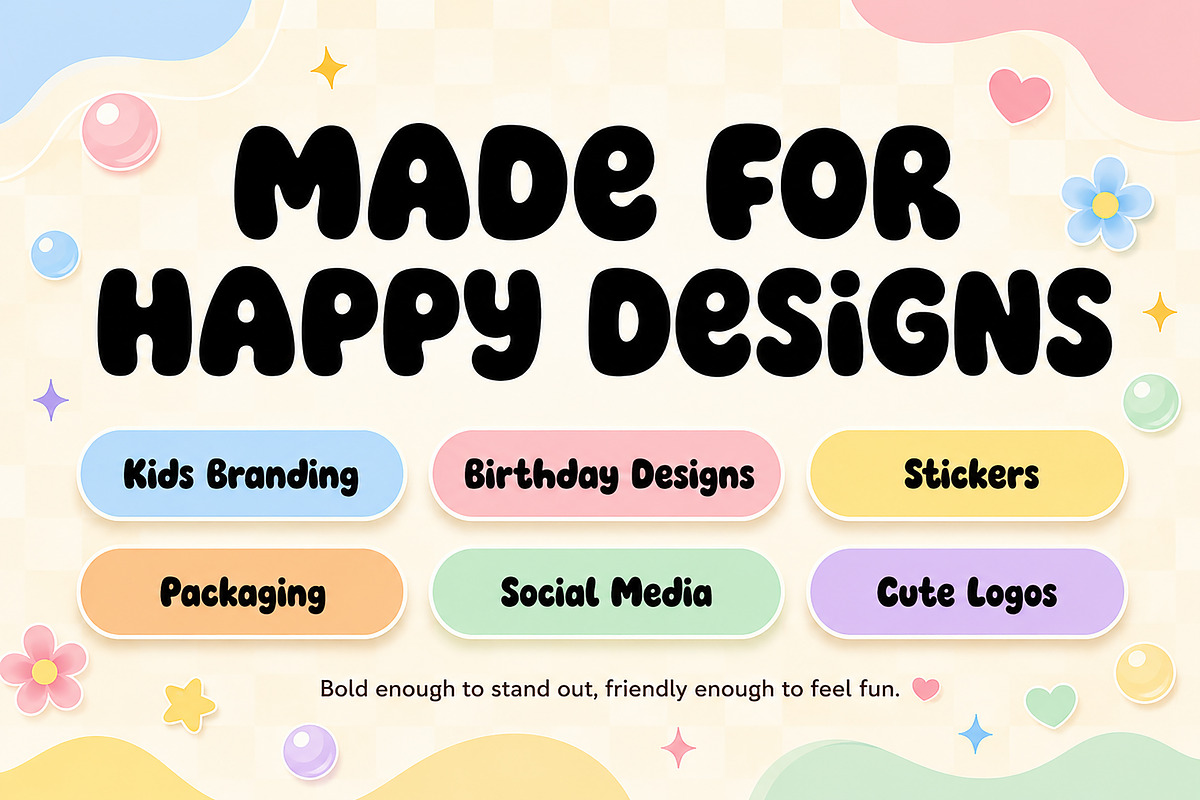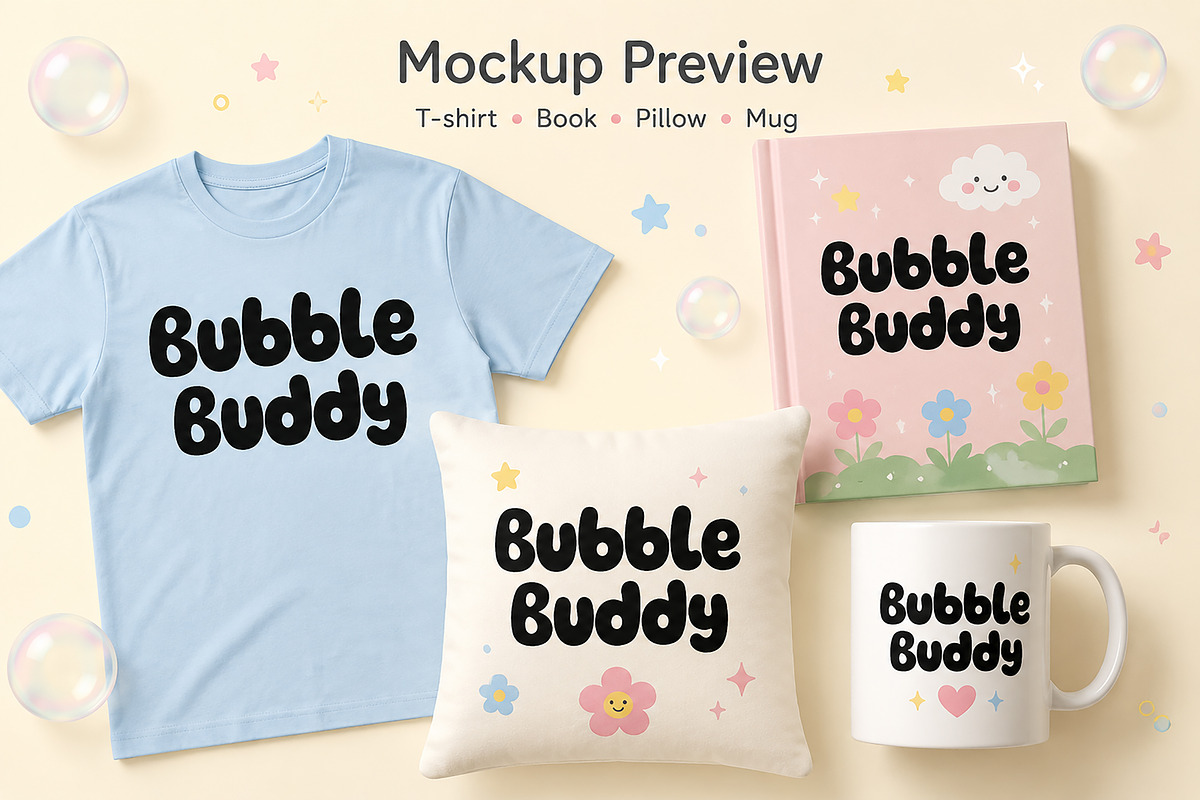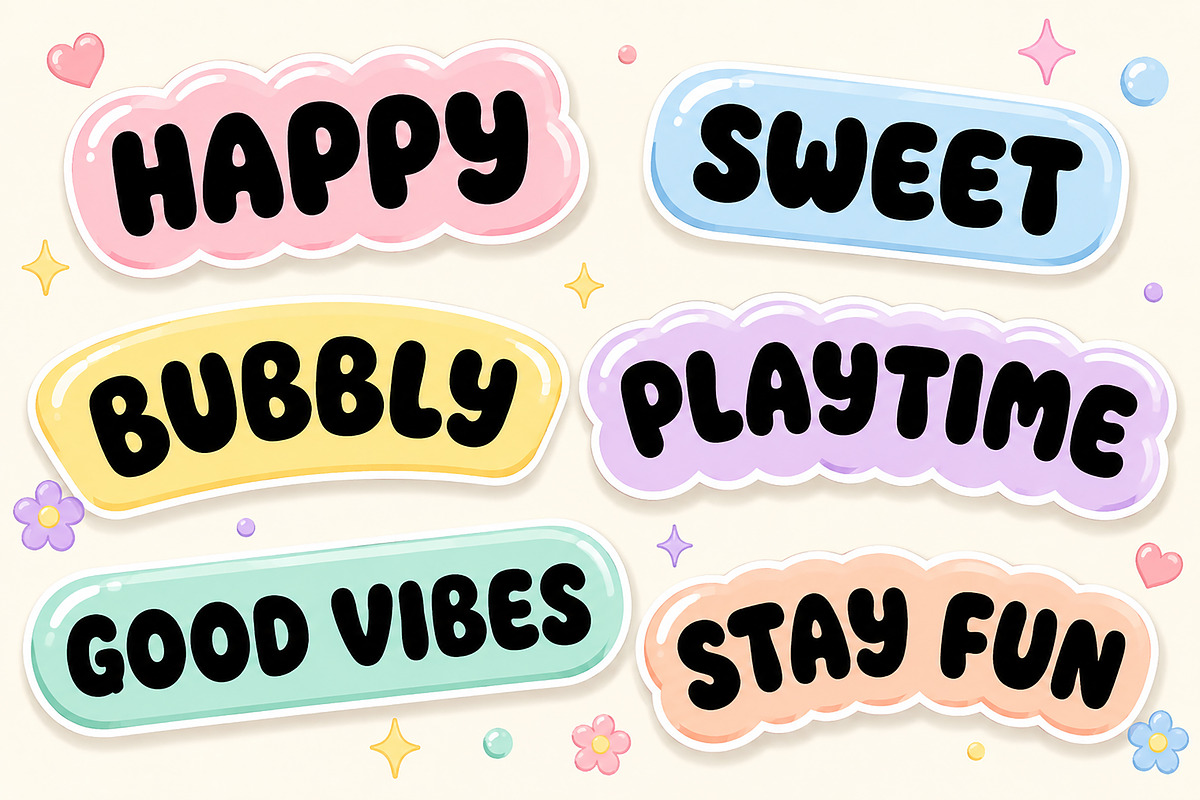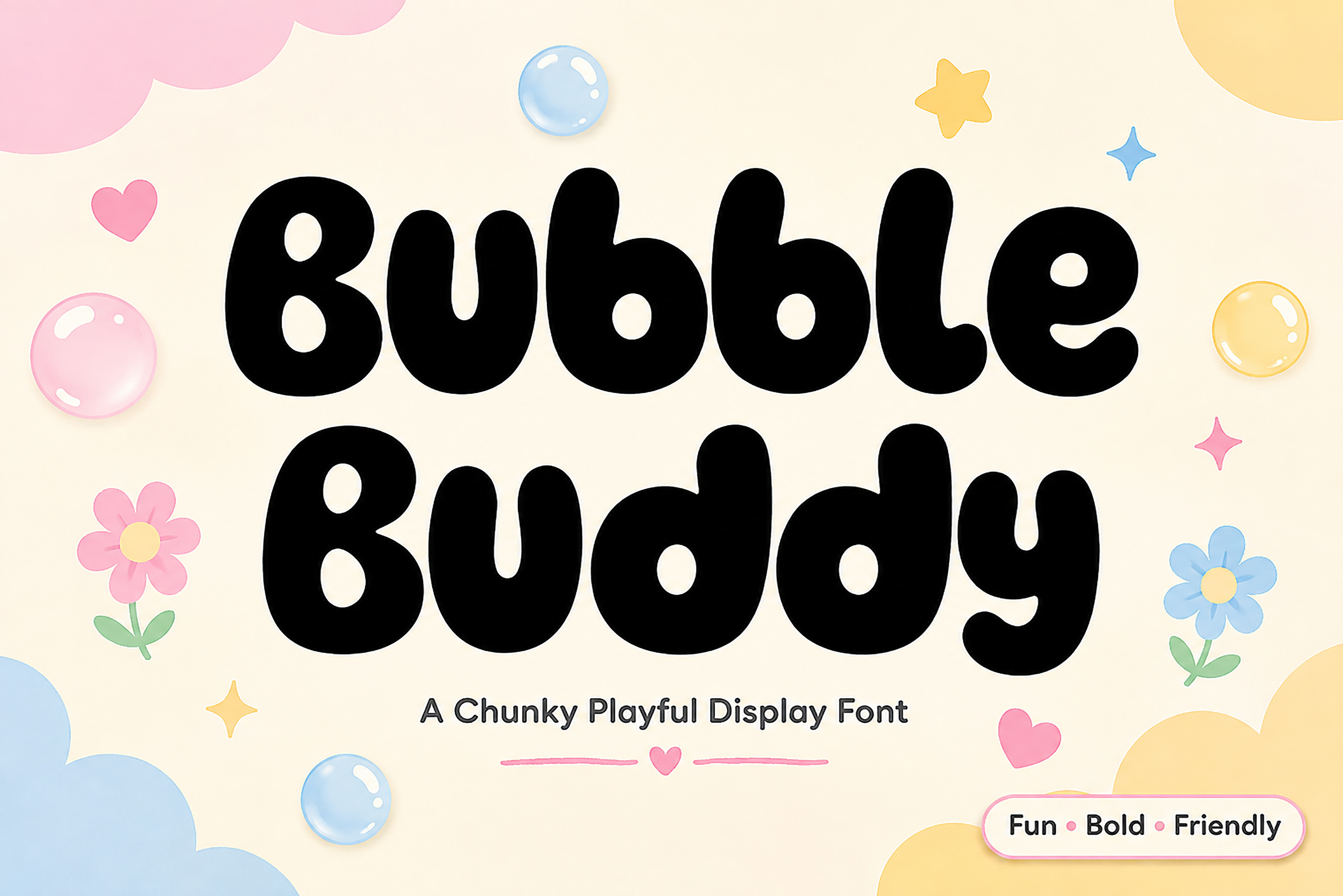
Bubble Buddy – Chunky Display Font
Bubble Buddy – Chunky Playful Display Font
Bubble Buddy is a bold, chunky, and playful display font with soft rounded letterforms and a friendly personality. Its bubbly style is perfect for creating cheerful titles, cute branding, kids’ designs, stickers, packaging, social media graphics, and other fun creative projects.
Bring a fun and friendly personality to your designs with Bubble Buddy, a chunky display font featuring bold, rounded, and playful letterforms.
The soft bubble-inspired shapes make every word feel cheerful, welcoming, and easy to notice. Bubble Buddy is an excellent choice for projects that need a cute, youthful, and energetic look while maintaining strong readability.
Use it for eye-catching headlines, children’s products, birthday designs, playful logos, merchandise, packaging, posters, social media posts, and much more.
Whether you are designing something sweet, colorful, or simply fun, Bubble Buddy will help your message stand out with a memorable and friendly style.
Kids’ branding
Birthday invitations
Cute logos
Stickers and labels
Product packaging
T-shirt designs
Book covers
Mugs and pillows
Posters and flyers
YouTube thumbnails
Craft and printable projects
Fun headlines and titles
Chunky and bold display style
Soft, rounded letterforms
Playful and friendly appearance
Clear and eye-catching design
Suitable for large headlines and titles